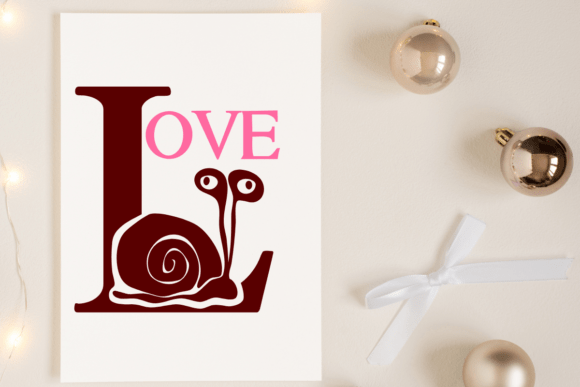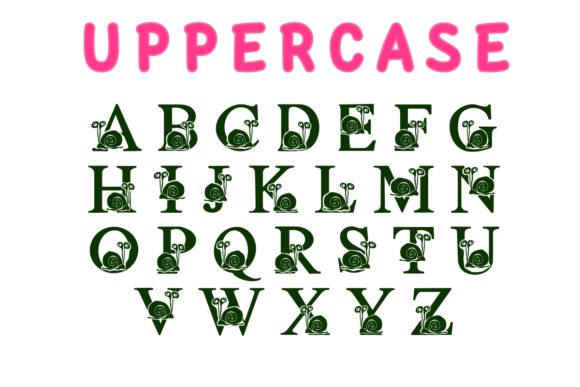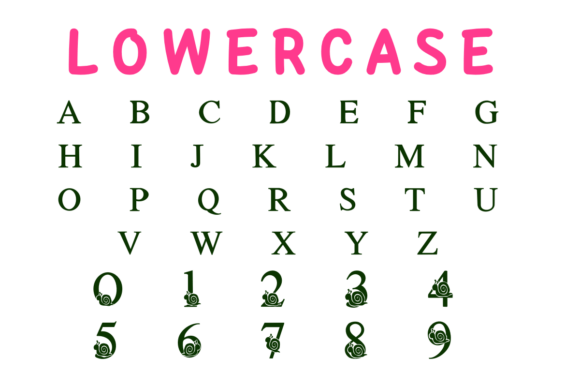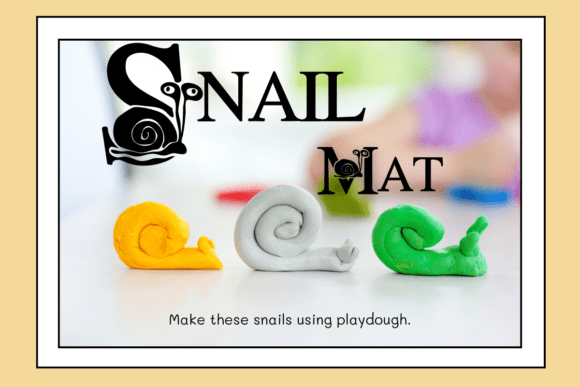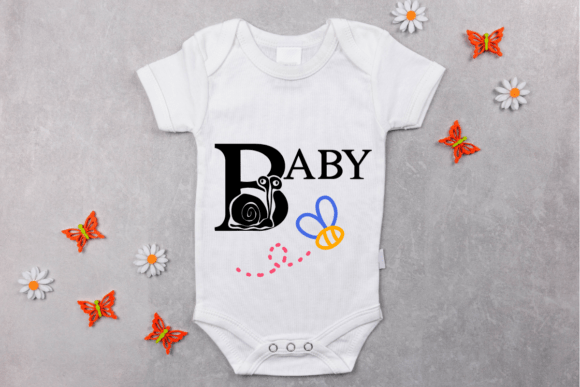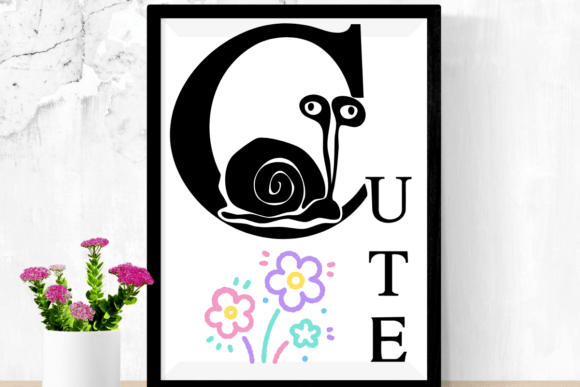
Introduction to Cute Snail Font
Have you ever sat down to work on a creative project, only to be stumped by the perfect font to match your vision? You’re browsing through design resources, scrolling through font options, and still, nothing seems quite right. That’s where the Cute Snail Font comes in – a delightful, whimsical font that’s sure to add a touch of charm to any design.
Perfect for writing a diary entry, creating a handmade card, or designing a social media post, the Cute Snail Font is a valuable asset for designers looking to add a personal touch to their work. With its transparent background and high-quality design, this font is free to download and use in a variety of creative projects.
Key Features of Cute Snail Font
- High-quality design: This font features intricate details, making it a great design resource for various creative projects.
- Transparent background: The Cute Snail Font comes with a transparent background, allowing for easy customization and integration into your design.
- Unique characteristics: The Cute Snail Font features a playful, whimsical design, making it perfect for children’s books, nursery decorations, and other creative projects.
- Perfect for creative projects: The Cute Snail Font is ideal for designers working on projects that require a touch of whimsy and fun, such as invitations, greeting cards, and more.
Honest Review: Cute Snail Font
I recently stumbled upon the Cute Snail Font, and I have to say it’s a delightful addition to my design resource library. As a designer, I’m always on the lookout for unique and high-quality fonts to elevate my creative projects.
Here’s what I like about the Cute Snail Font:
- The Cute Snail Font features a transparent background, which makes it easy to use on any design project.
- It’s a great option for designers who want to add a touch of whimsy to their designs.
- It may not be as versatile as other fonts in my collection.
- There are limited font sizes and styles available.
Overall, the Cute Snail Font is a great addition to any design library, and I would definitely recommend it to designers who are looking for a fun and creative font. It’s a great option for personal projects or small-scale commercial use.
The Cute Snail Font is a high-quality design resource ideal for creative projects that require a playful and whimsical touch. With its unique and adorable design, this font is perfect for adding a personal touch to your work.
Tips for Getting the Most Out of Cute Snail Font
To get the most out of the Cute Snail Font, try combining it with other design elements, such as transparent backgrounds and colorful graphics. This will help you create unique and eye-catching designs.
The Cute Snail Font is perfect for:
- Children’s book illustrations
- Food blog graphics
- Social media posts for pet owners
Designing with Cute Snail Font
When designing with the Cute Snail Font, remember to keep your design simple and clean. This font is perfect for adding a touch of whimsy to your work, but it’s essential to balance it with other design elements.
Unlike Cute Snail Font, Pacifico has a more sophisticated and refined look, making it ideal for projects that require a higher level of professionalism. It’s available for free download and comes with a transparent background, making it easy to use in various design scenarios.
Q: Can I use Cute Snail Font with a transparent background?
Yes, Cute Snail Font supports transparency, allowing you to use it with a transparent background in your designs. This feature is particularly useful for creating visually appealing and modern designs.